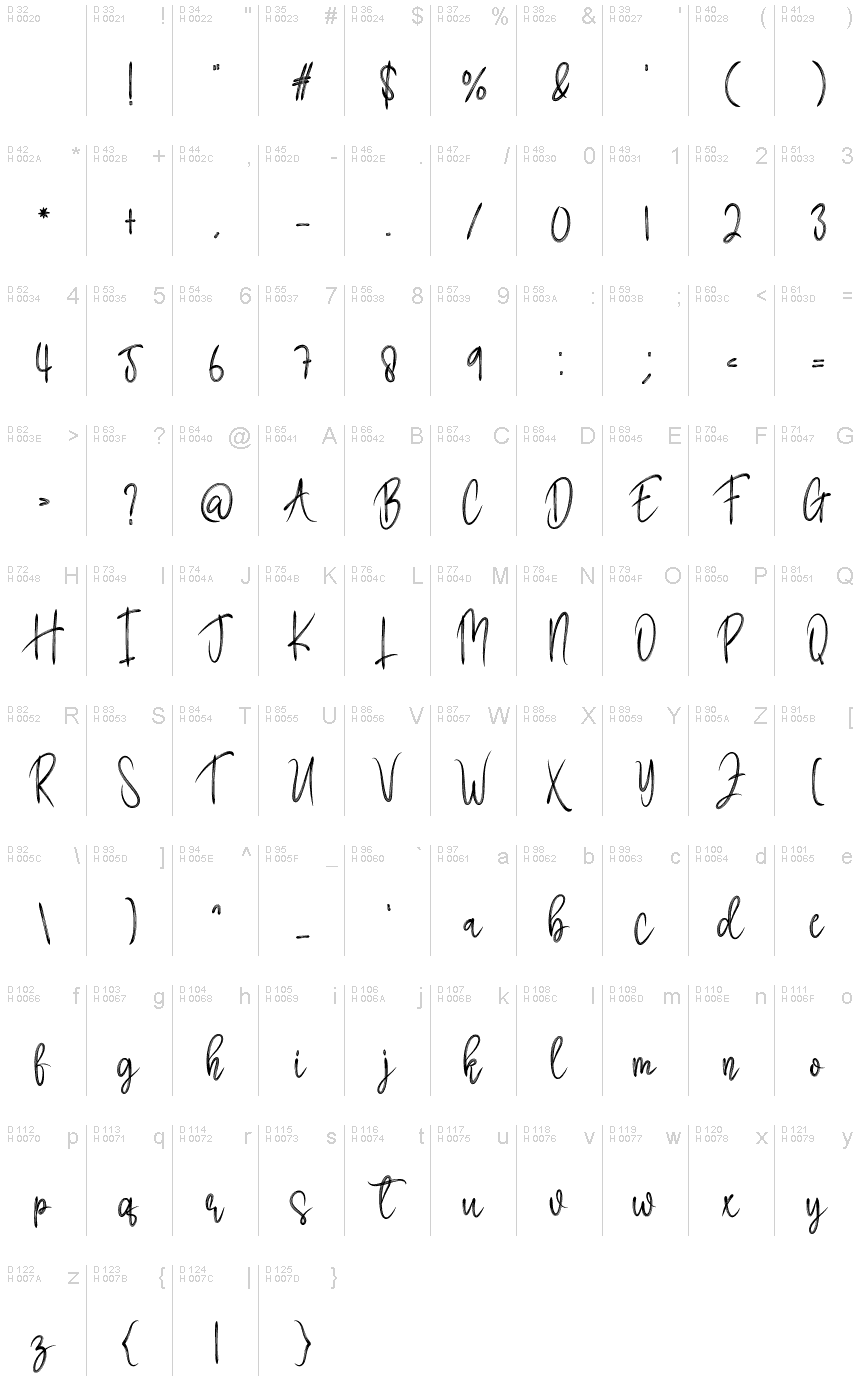
Back To School
The Back To School font designed by scratchones is perfect for adding a modern, yet handcrafted touch to your projects. Its light brush weight and narrow width make it suitable for logos, website headers, posters, and more.